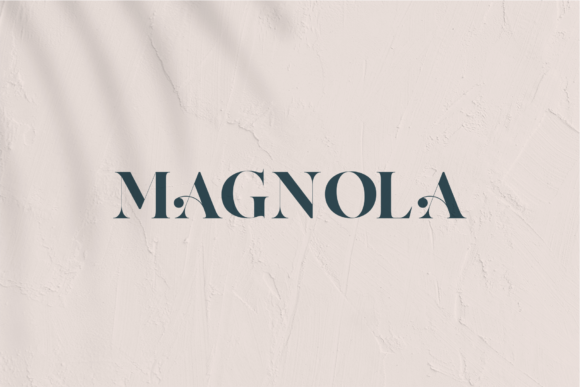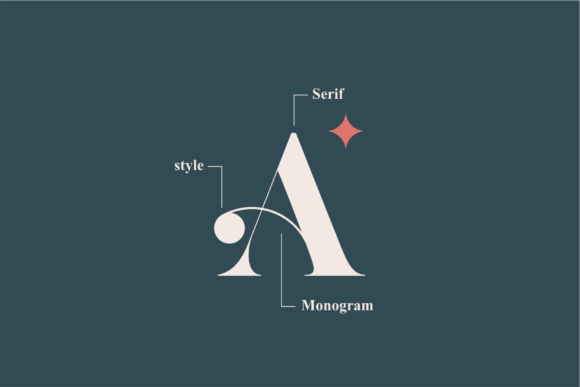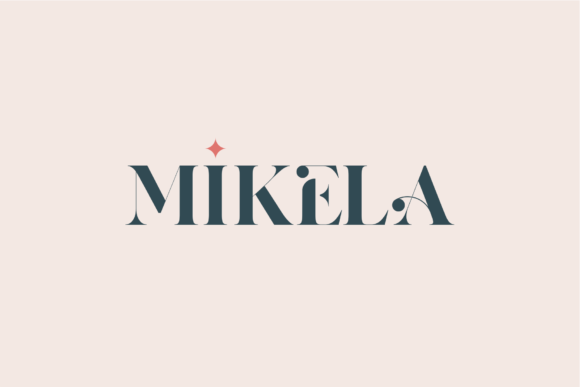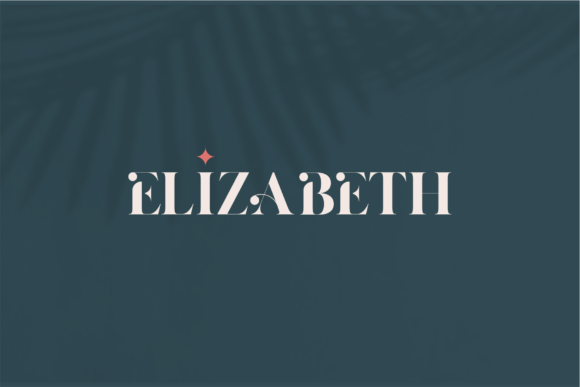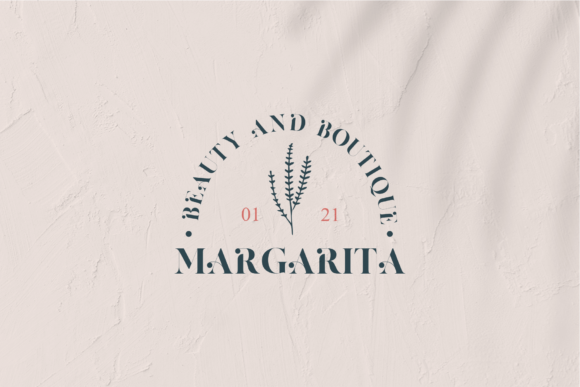
Aqila Font: Elevate Your Creative Projects with Elegance
Aqila is a beautiful serif font that can instantly add a touch of sophistication and elegance to your creative projects. Whether you’re a designer, crafter, or simply someone who appreciates the art of typography, Aqila is a fantastic addition to your font collection. In this article, we’ll explore the features and benefits of Aqila, and how it can bring your ideas to life.
The Beauty of Serif Fonts
Serif fonts have been a staple of typography for centuries, and for good reason. The small lines or flourishes at the end of each letter give serif fonts a unique charm and character that can add depth and personality to your text. Aqila is no exception, with its elegant serif details and classic design.
What Makes Aqila Special?
Aqila is more than just a pretty font – it’s also highly versatile and easy to use. Here are just a few reasons why Aqila stands out:
- Classic design: Aqila’s serif design is inspired by traditional typography, making it perfect for projects that require a touch of elegance and sophistication.
- High legibility: Aqila’s clear and simple letterforms make it easy to read, even at small sizes.
- Flexibility: Aqila can be used for a wide range of projects, from headings and titles to body text and more.
How to Use Aqila in Your Creative Projects
Adding Aqila to your font collection is just the first step – here are some ideas for using it in your creative projects:
- Branding and logos: Use Aqila to create elegant and sophisticated brand identities that will help your business stand out.
- Headings and titles: Aqila is perfect for headings and titles, adding a touch of class and elegance to your text.
- Invitations and announcements: Use Aqila to create beautiful and eye-catching invitations and announcements that will make a lasting impression.
- Packaging and labels: Aqila can add a touch of sophistication to your packaging and labels, helping your products stand out on store shelves.
Tips for Working with Aqila
Here are some tips for getting the most out of Aqila:
- Experiment with font sizes: Aqila looks great at a wide range of font sizes, so don’t be afraid to experiment and find the perfect size for your project.
- Play with font colors: Aqila can be used in a variety of font colors, from classic black and white to bold and bright colors.
- Pair it with other fonts: Aqila can be paired with a wide range of other fonts to create interesting and dynamic typography.
Aqila is a beautiful serif font that can add a touch of elegance and sophistication to your creative projects. With its classic design, high legibility, and flexibility, Aqila is perfect for a wide range of projects, from branding and logos to headings and titles. Whether you’re a designer, crafter, or simply someone who appreciates the art of typography, Aqila is a fantastic addition to your font collection. So why not give Aqila a try and see how it can bring your ideas to life?